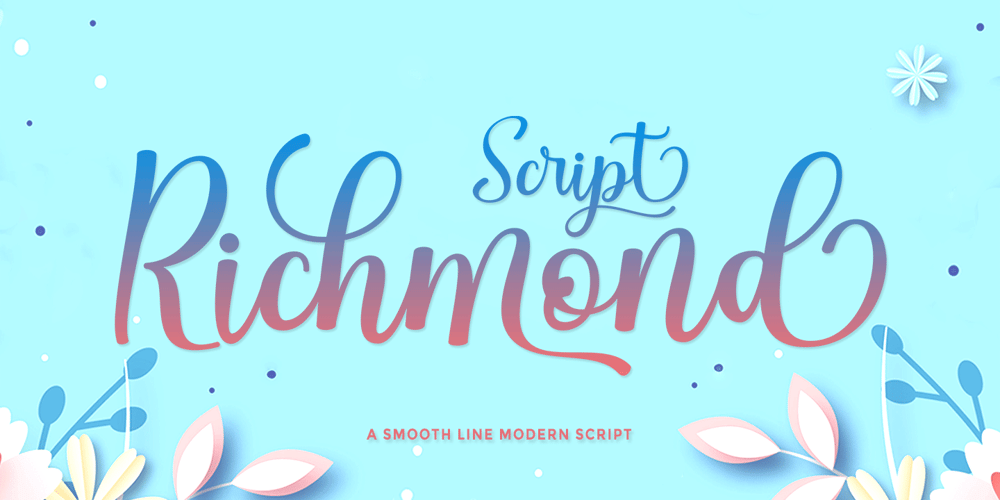
Richmond Script Font Family was designed by Sidiq Fahmi and published by Rotterlab Studio. Richmond Script contains 1 styles and family package options. Richmond Script is a beautiful script font with many alternative styles, this font looks natural, elegant, and perfect for extraordinary projects. Richmond Script is suitable for various products such as invitations, product packaging, quotes, product designs, crafters, labels, photography, watermarks, logos & branding. Everything can be accessed using software that supports Opentype, such as Adobe Indesign, Adobe CS Illustrator, Adobe Photoshop CC, and Corel Draw.You will get:Richmond Script OTFThank you ๐